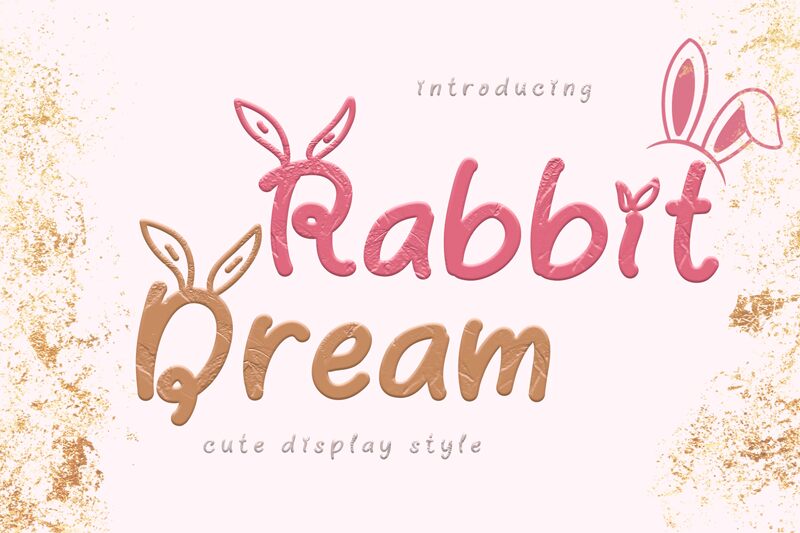
Rabbit Dream font by Yoga Letter is a free holiday-style typeface characterized by its childlike, whimsical, and textured appearance. Soft and organic, this inviting font is friendly and informal, making it ideal for a wide array of creative projects. Its decorative and warm design captures a playful essence that enhances visual storytelling, adding a touch of magic and wonder to your text.
Perfect for holiday-themed projects, children’s books, greeting cards, posters, invitations, digital games, or educational materials, Rabbit Dream brings a unique flair. It can also be used effectively in branding, social media content, packaging, advertisements, crafts, signage, or any personal or artistic project looking to radiate a lighthearted and fun atmosphere.